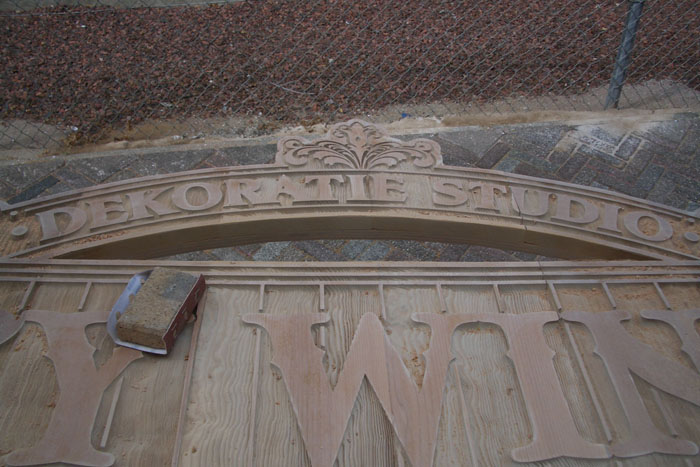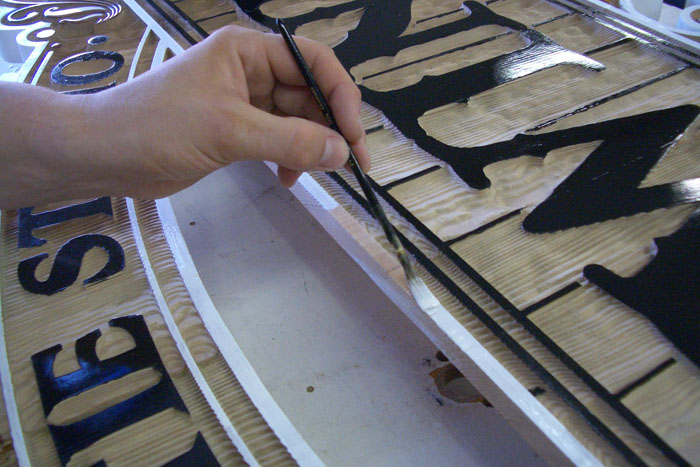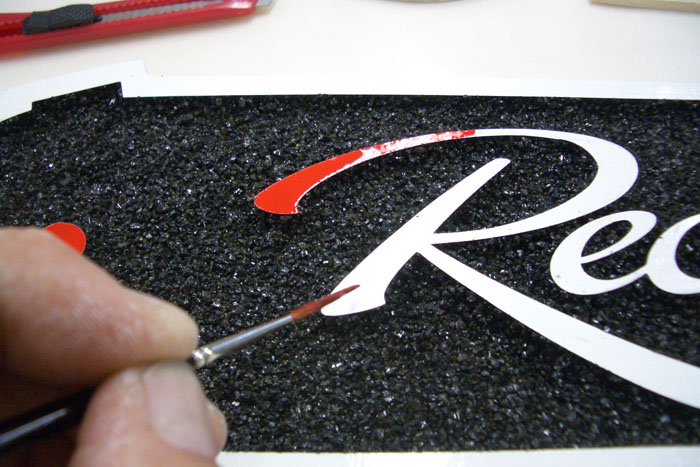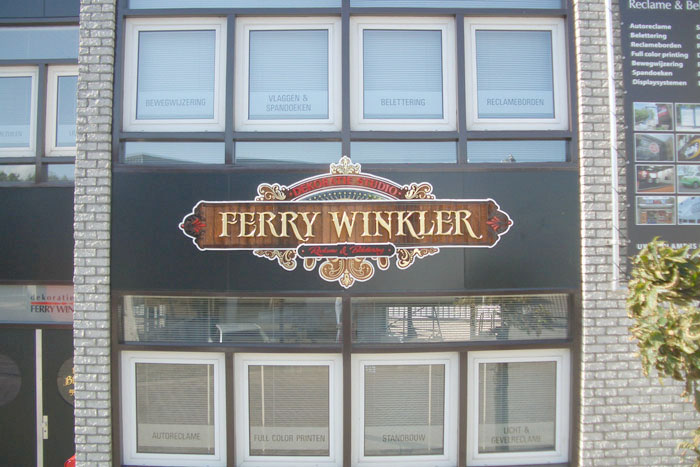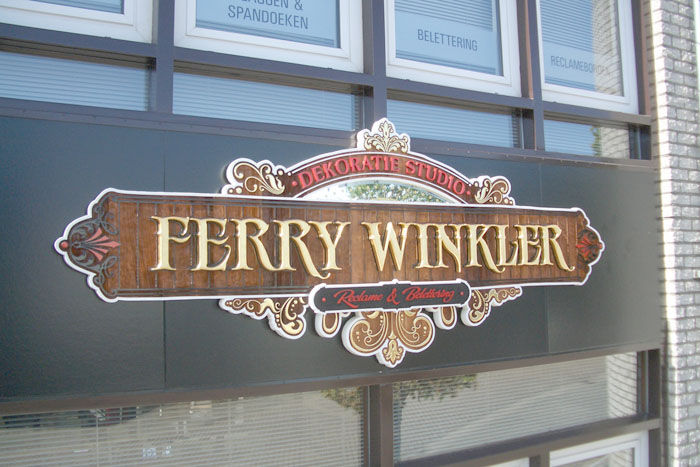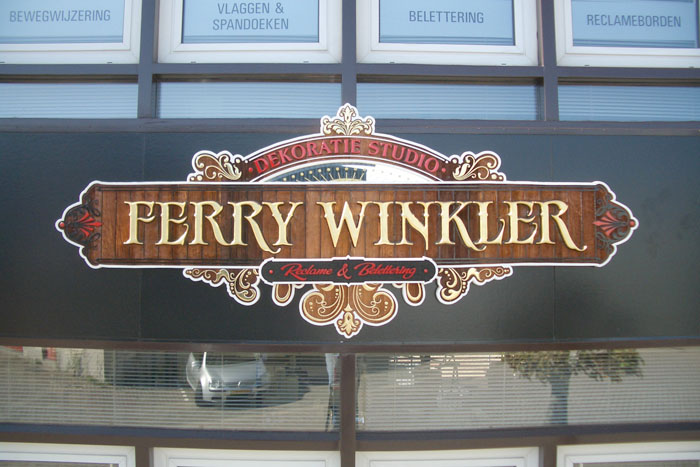
3D Sign in the Making.
A few days ago our building facade was painted and they had to pull down the old lettering.
I told the painters that they could throw them away, because I thought it was time to give our company a new look.
After a few brainwaves and some computer sketching I came up with this design.
- Sign will be mounted on 4 black panels.
I like the style.....lotsa options for going dimensional.......from mild to crazy!
I'd like to see it with your name reversed with DEKORATE STUDIO.......isn't that waht you are selling? Also, if what that bottom panel says is important, it probably should be a little bigger.... script is a tough read to begin with. You'd get a little more contrast too, if the panel behind WINKLER was darker......maybe a rich, deep brown or even green.
Just a few of my thoughts....
The message we are selling is the name 'Ferry Winkler' the extra'Decoratie Studio' is something we want to get rid of marketing wise, it does not help the client in understanding what we do. As the sign will be 2,5 meters above our door, he sub text ' Reclame & Belettering' will be just and decorative element in two of the things we do.
The main purpose of this sign will be a sample case of some of the techniques I like to use:
1 ) Sandblasting wood.
2 ) Handpainting.
3 ) Epoxy modeling.
4 ) 3d lettering.
5 ) Surface Gilding.
6 ) Laying mother of pearl.
7 ) Glue chipping and watergilding.
8 ) Using facet abrased mirroring.
9 ) Designing.
10 ) Laser cut lettering.
11 ) Two component polyurthane coating.
etc.
And ofcourse show people this is the place to find us: Ferry Winkler
O.K.
In this case, I'll keep my 2 cents to myself and just watch what you do to showcase your offerings.
I do like the design.....it could have been overdone, but IMHO it wasn't. Nice.
Here some more photo's of the 3D Sign in the making.
Cutting the contour and filling the gaps with a two component wood filler.
On my way to the next steps.
So far so good.
After hours of blasting in the lonely darkness of the night and weekend.
Just a few hundred steps to do, almost there
Eric......a few good shots there but wish you had stepped up to the plate in advance of getting started. Am not sure of how this will hold up in your part of the world but over here there in no way you could use that process and expect results to hold up past 1 winter. Your boards should run from left to right (prevents rotting)and using plywood would only invite disaster(different expansion rates). I admit our climate is much more harsh but I needed to make this comment for folks the in North America.
Absolutely amazing!! And great step-by as well- thanks!
Kelly, here some more detail photo's of the gilding and epoxied abalone.
As allways the photo's do not give justice to the real effects.
And some more detail shots: